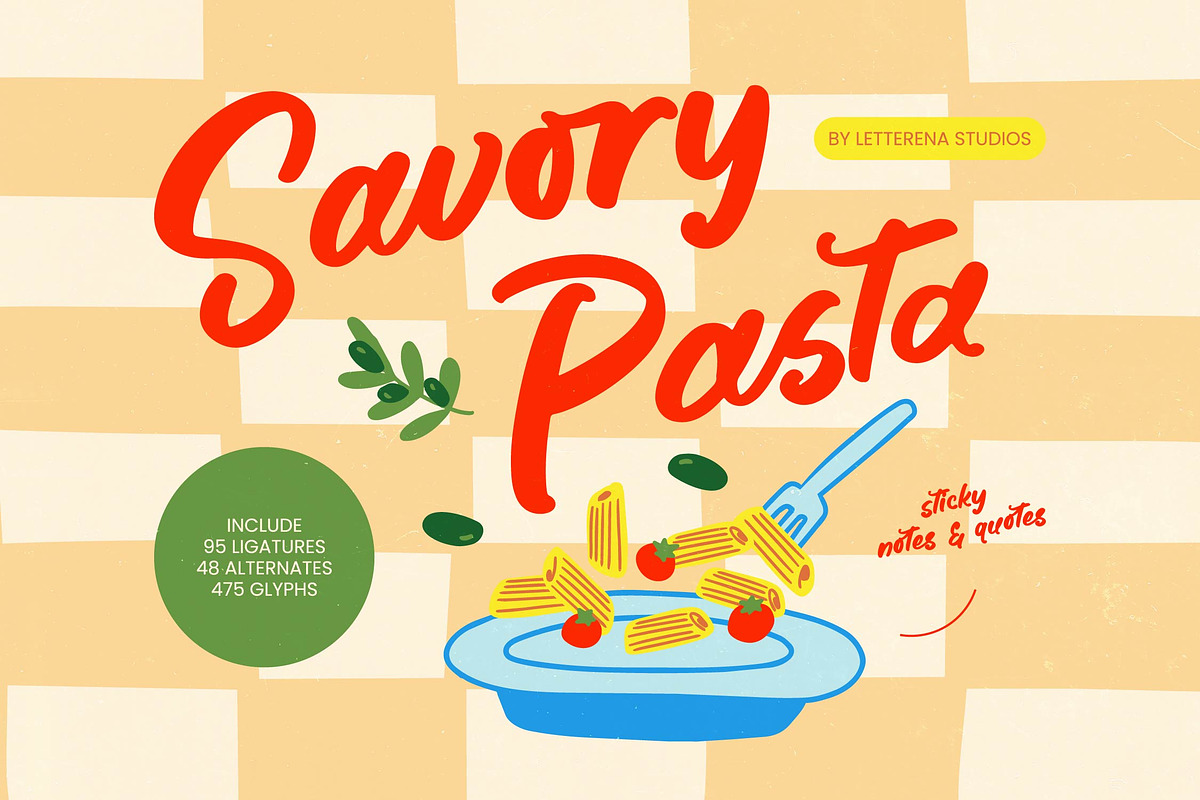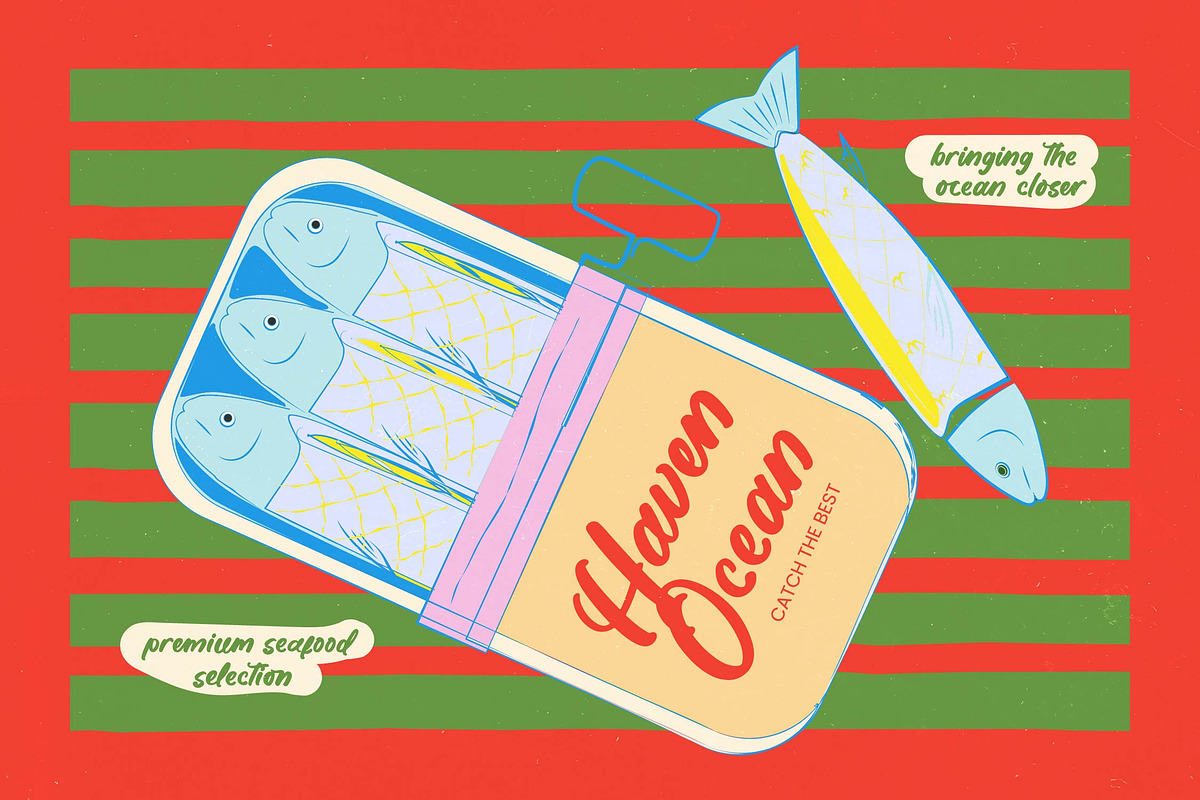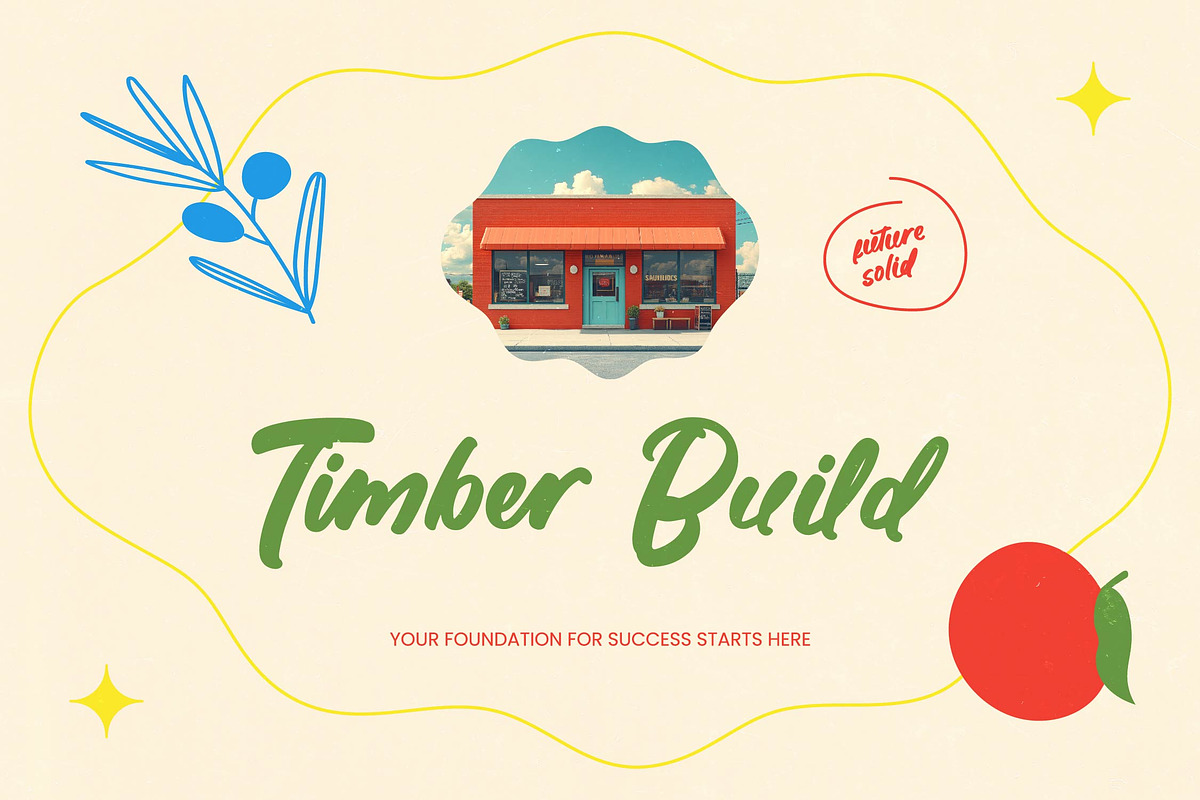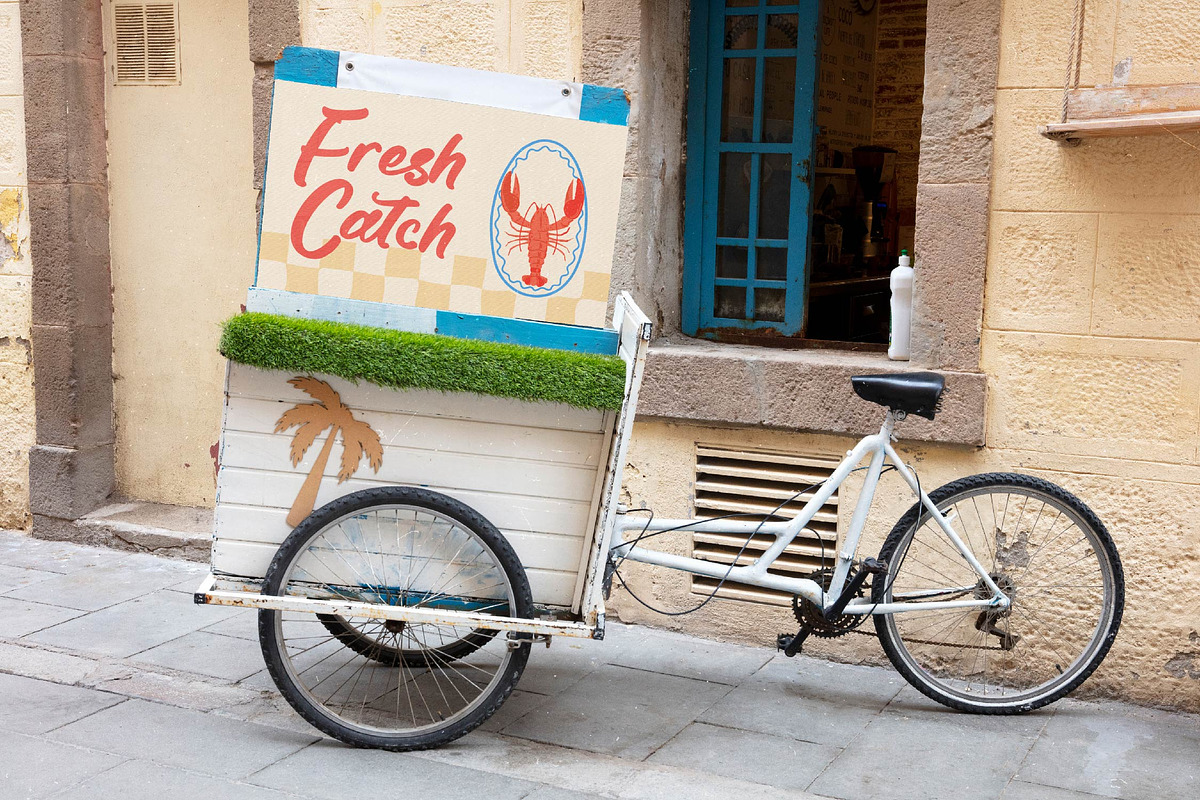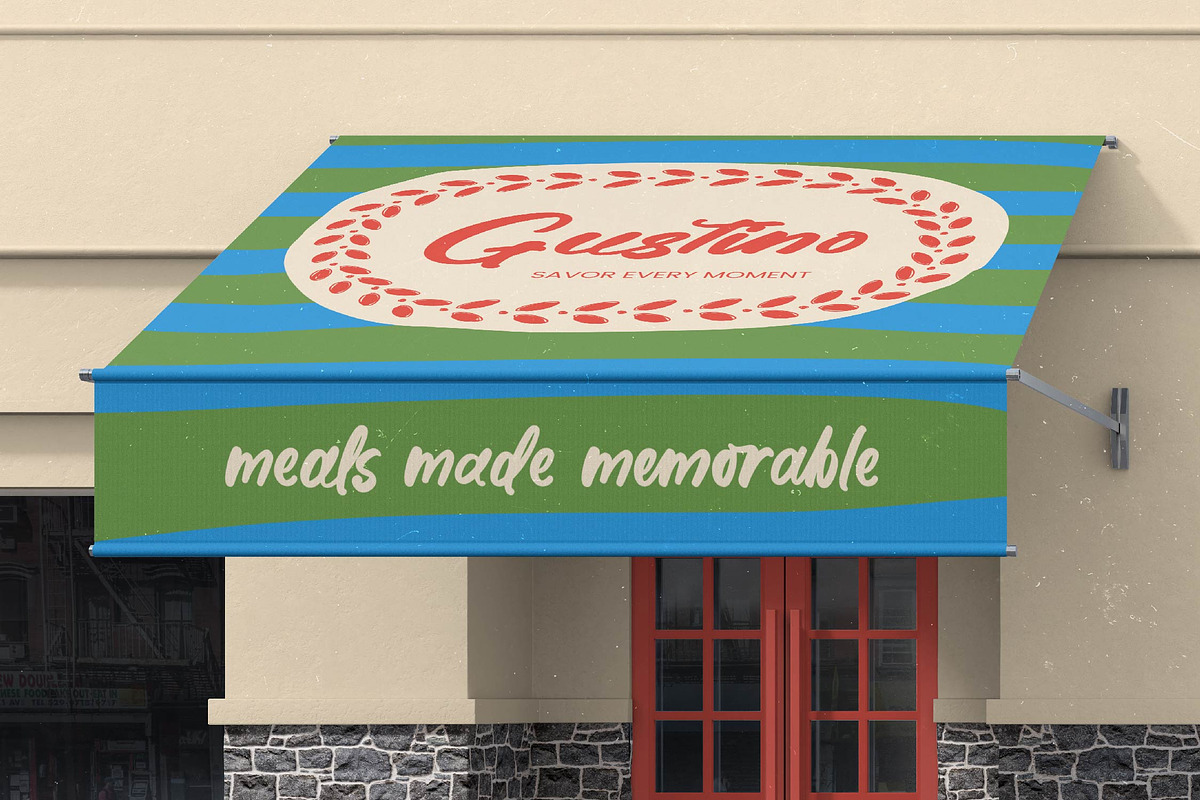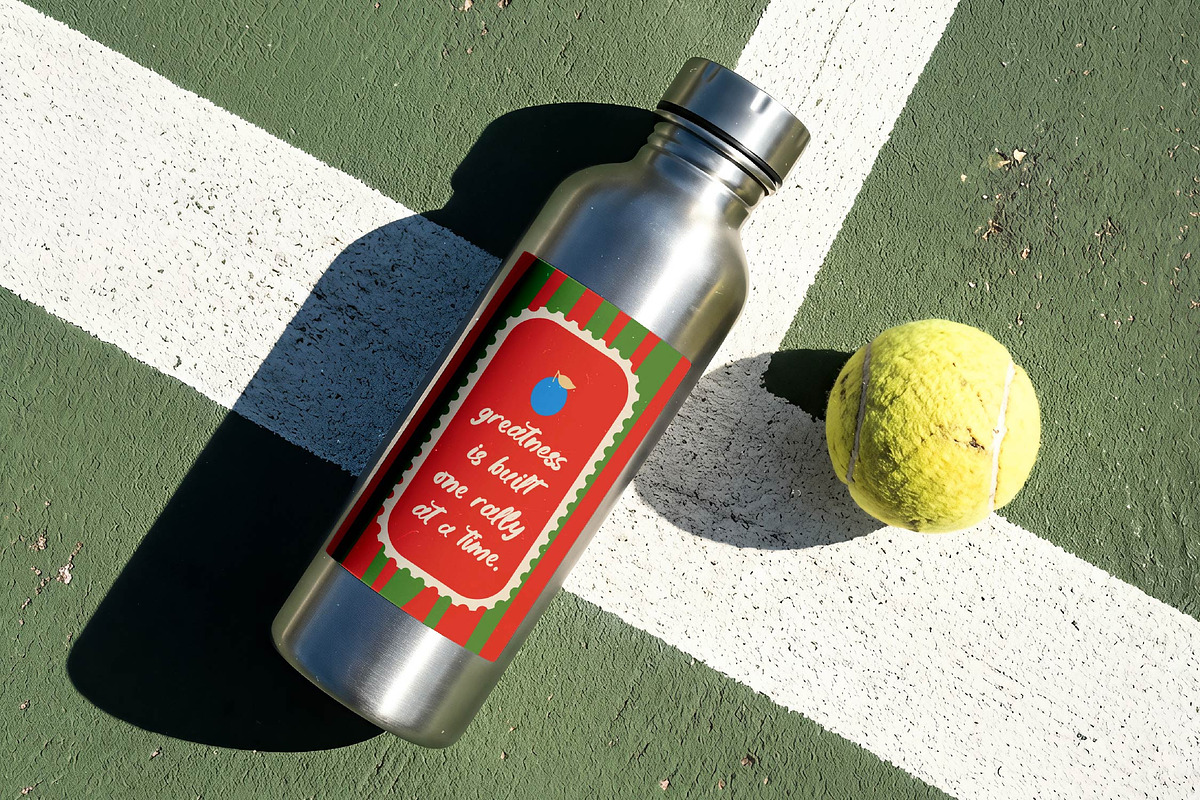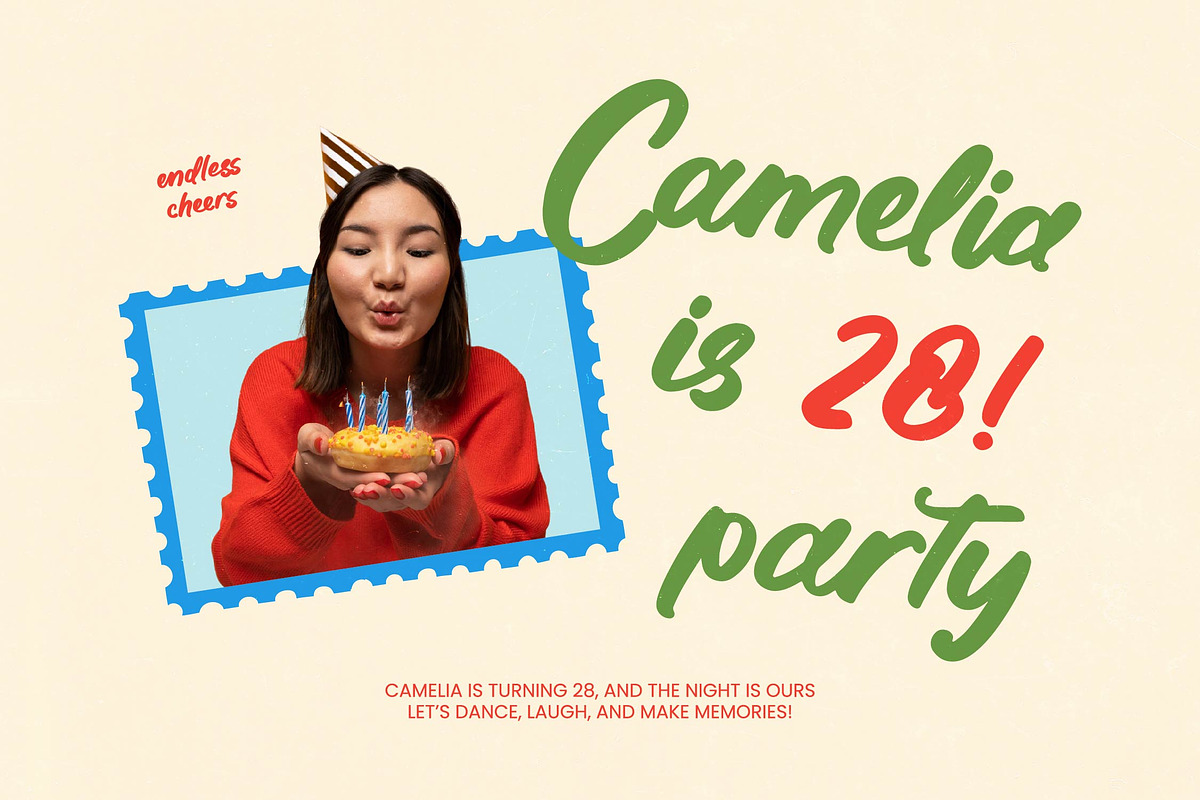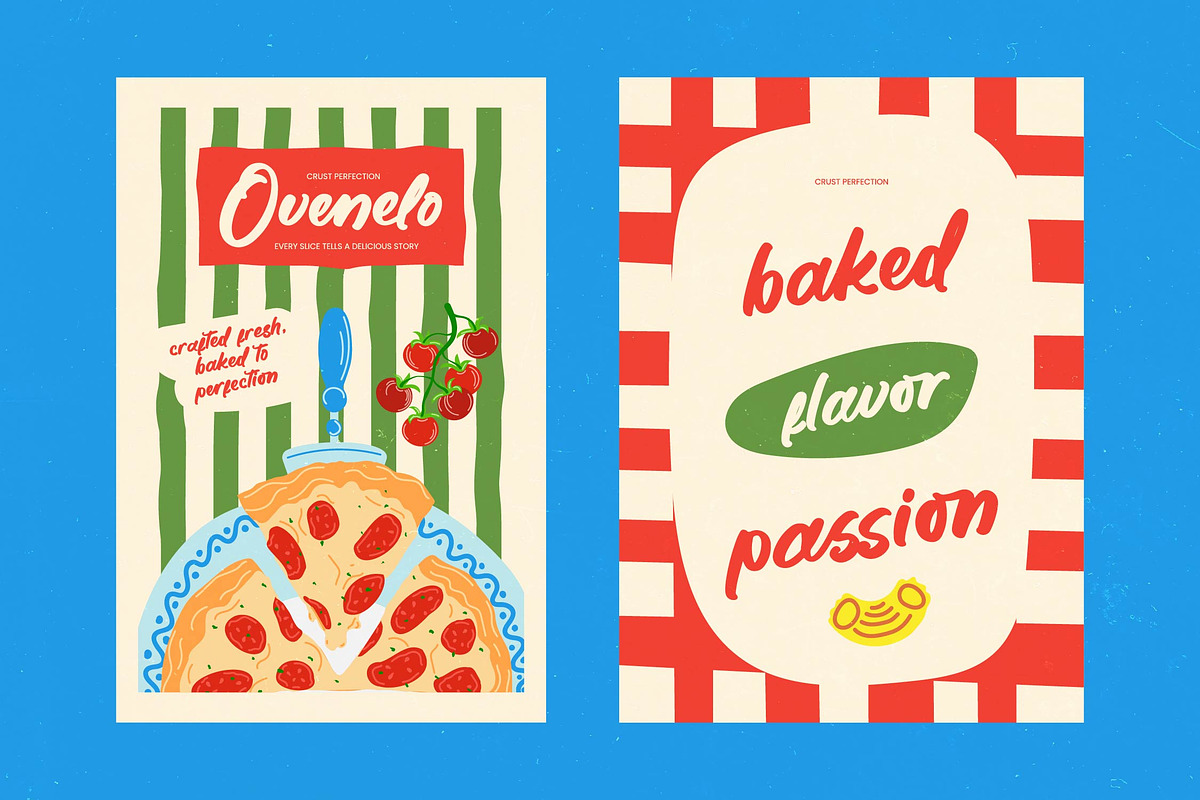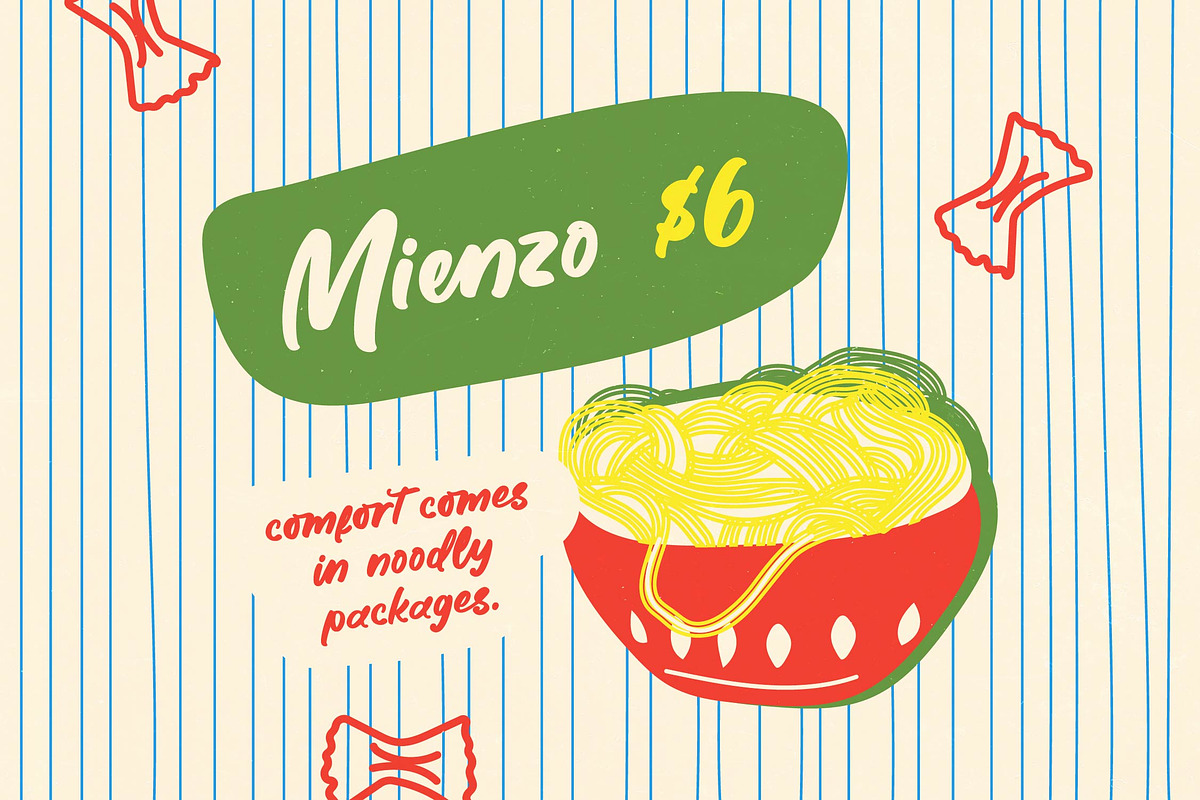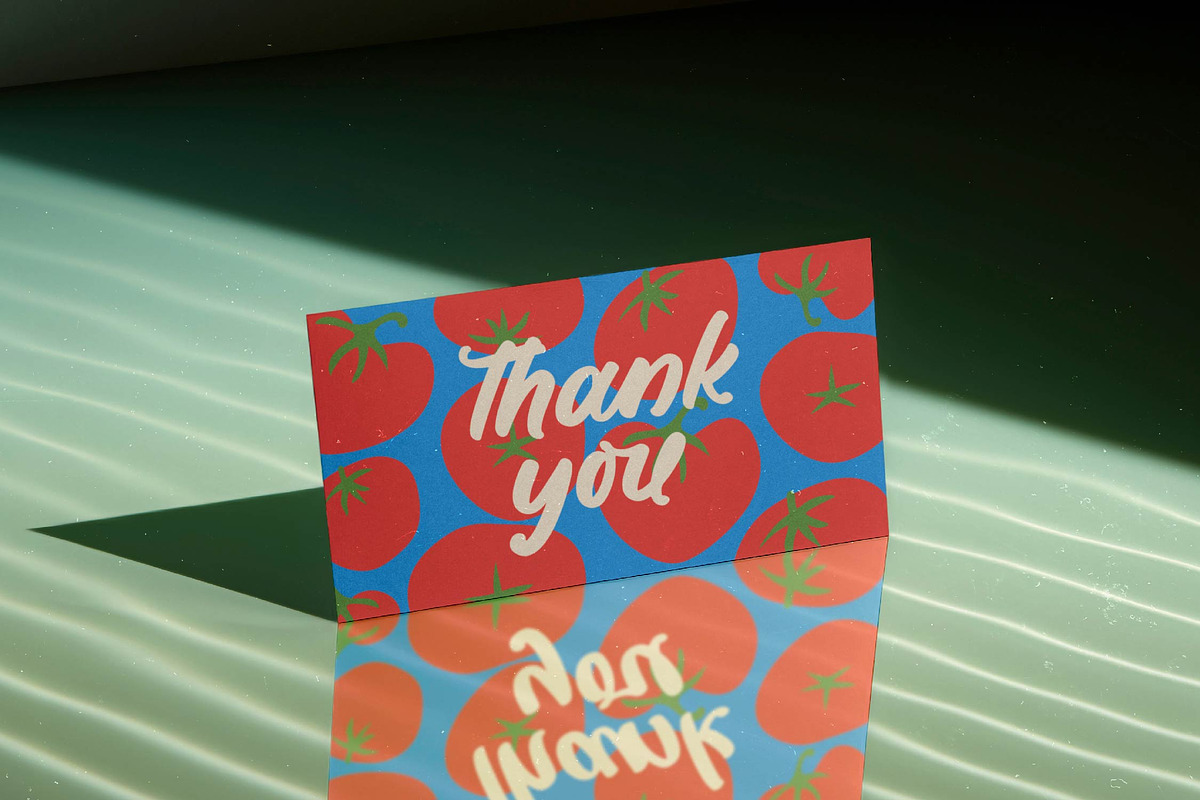
Savory Pasta Sticky Notes & Quotes
Savory Pasta - Sticky Notes & Quotes
Elevate your creative projects with a touch of organic charm and hand-drawn aesthetics. Savory Pasta - Sticky Notes & Quotes is a masterfully crafted script font that captures the fluid motion of a brush, offering a warm and inviting personality to any visual storytelling endeavor. Its natural rhythm and effortless flow make it an essential tool for designers seeking to add an authentic, human touch to their digital and print media, ensuring a premium look that resonates with modern audiences.
Precision meets personality in this highly versatile typeface, making it the perfect choice for a wide array of commercial applications. Savory Pasta - Sticky Notes & Quotes is ideally suited for culinary branding, packaging design, and restaurant menus, where its flavorful aesthetic truly shines. Whether you are working on luxury branding, social media graphics, or editorial projects, this font provides the artistic flair necessary to capture consumer attention and build a memorable, cohesive brand identity.
Expand your brand’s reach without compromising on style or functionality across different territories. With its extensive multilingual support, Savory Pasta - Sticky Notes & Quotes adapts seamlessly across global markets, making it incredibly versatile for international projects. Boasting an impressive collection of 475 glyphs, this font ensures that your message remains consistent and impactful, regardless of the linguistic requirements or the complexity of the typographic layout, providing a truly global solution for designers.
Unlock unparalleled creative freedom with a wealth of custom features designed for professional typography. Savory Pasta - Sticky Notes & Quotes includes 95 ligatures and 48 alternates, allowing for a bespoke look that rivals custom hand-lettering. By integrating these sophisticated OpenType features, you can create high-impact designs that stand out in a competitive market, ensuring your creative marketing collateral is both polished and uniquely tailored to your client's specific needs.